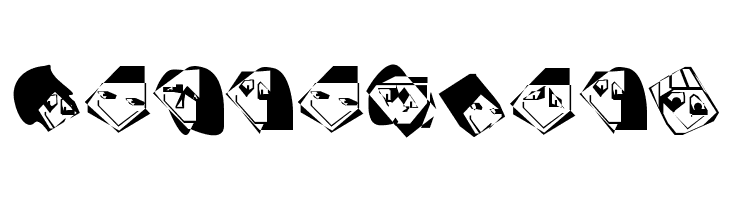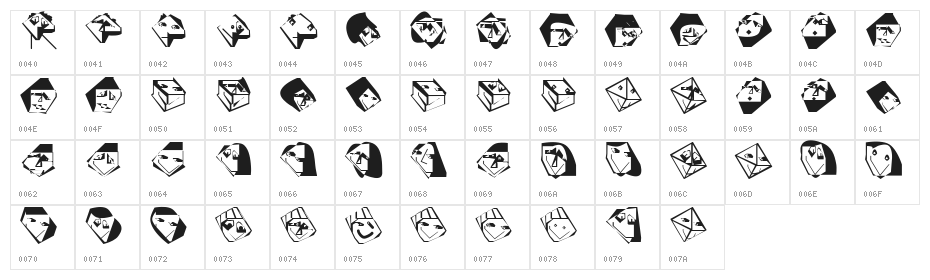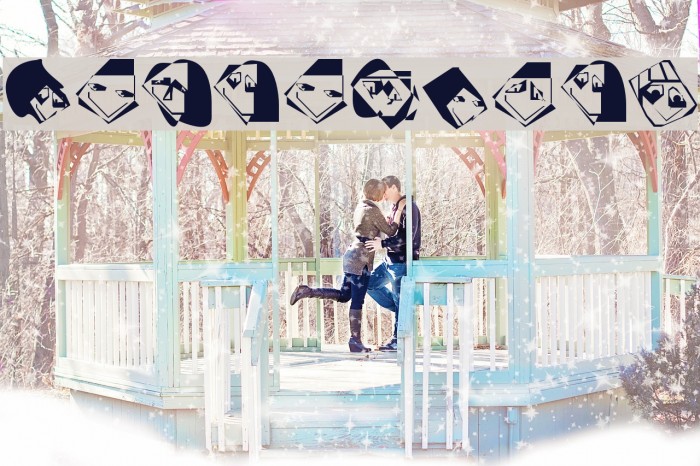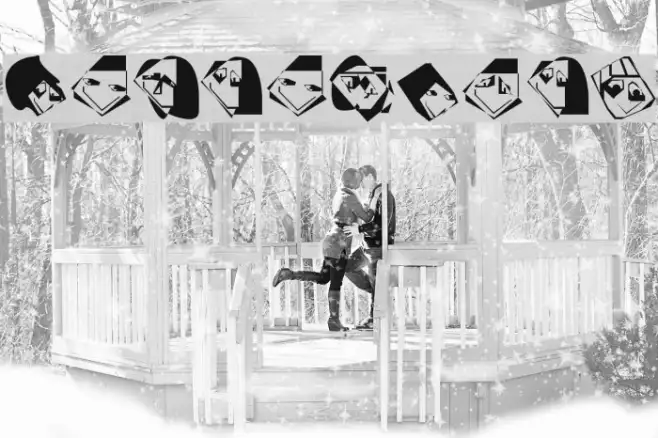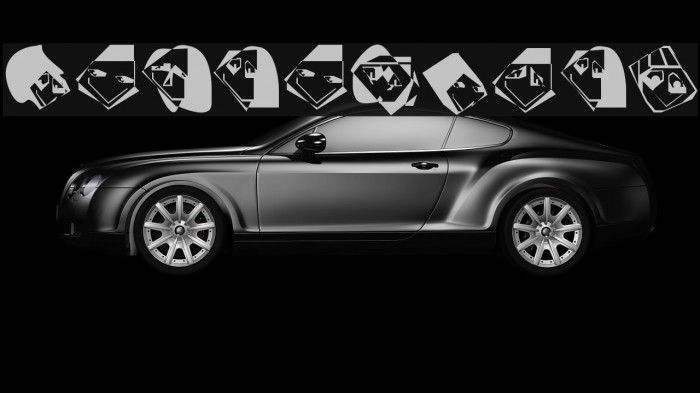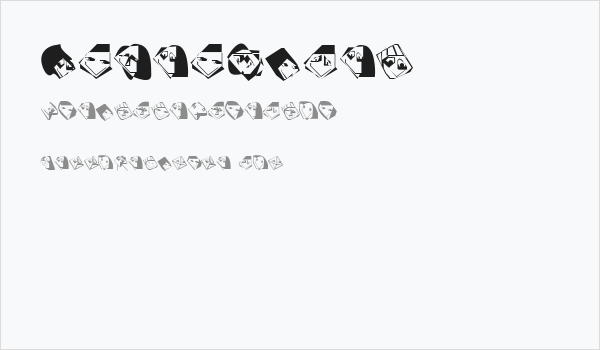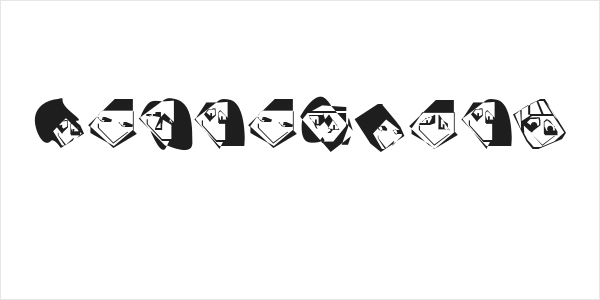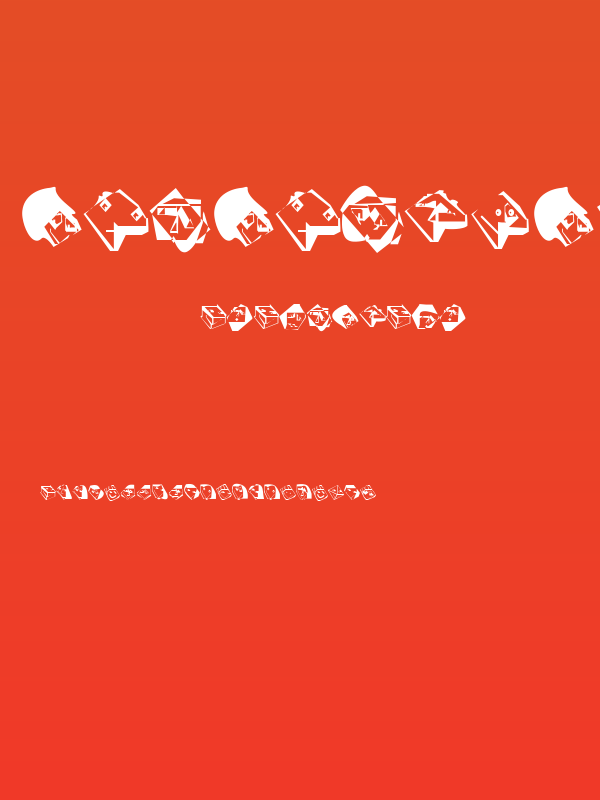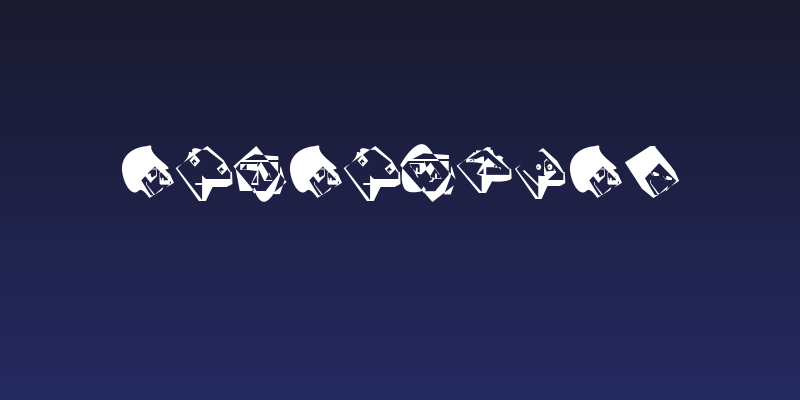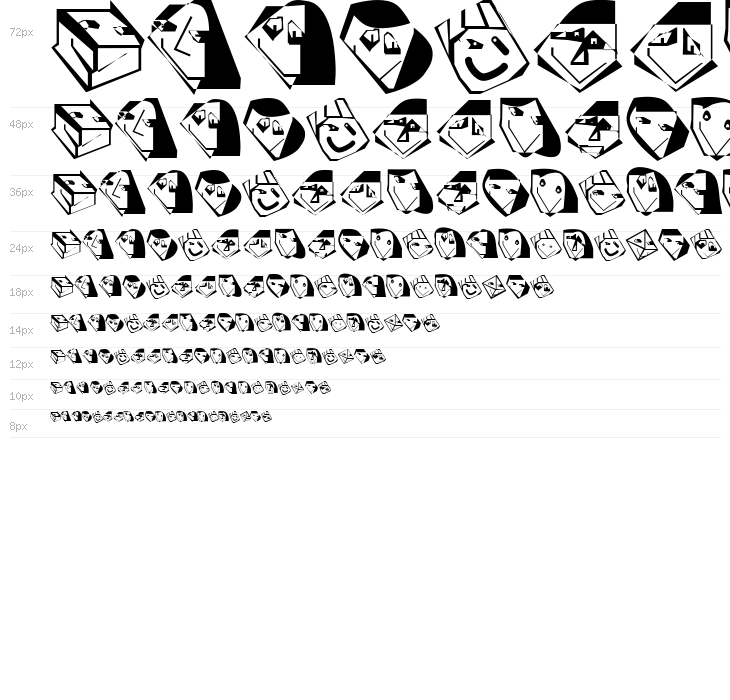
EdgedFaces Font
EdgedFaces Description
This font is a highly creative and artistic design featuring letters that are integrated into abstract faces. Each character is uniquely crafted to resemble a face with distinct expressions, using bold geometric shapes and high contrast between black and white. The style is playful and imaginative, making it stand out as a decorative display font. The characters are enclosed within angular shapes, adding a sense of structure and uniformity despite the whimsical nature of the faces. This font is perfect for projects that require a touch of humor and creativity, such as children's books, playful branding, or artistic posters.
| Use Case | Logos, Posters, Creative projects |
| Proposed Projects | Ideal for children's books, playful branding, artistic posters, and creative design projects. |